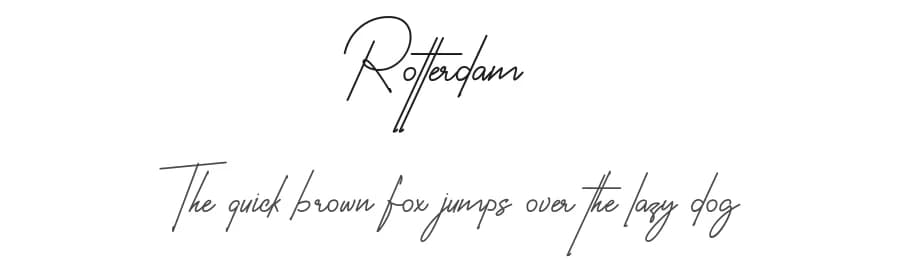
About Rotterdam Font
'Rotterdam Signatur' is perfect for personal branding as a watermark for your business.
Rotterdam Font is a script font that shines as a display or heading face. Pair it with a clean sans-serif or serif font for body text β the contrast creates a clear hierarchy while the two styles stay balanced and easy to read.
Rotterdam Font